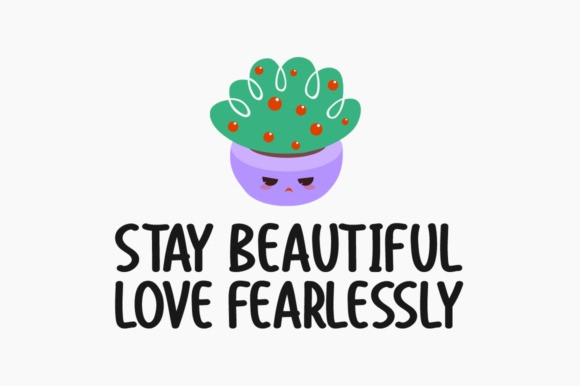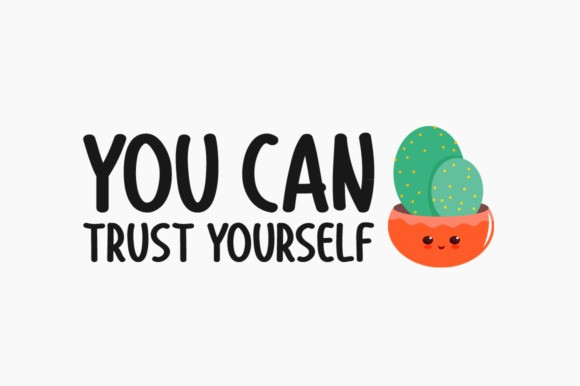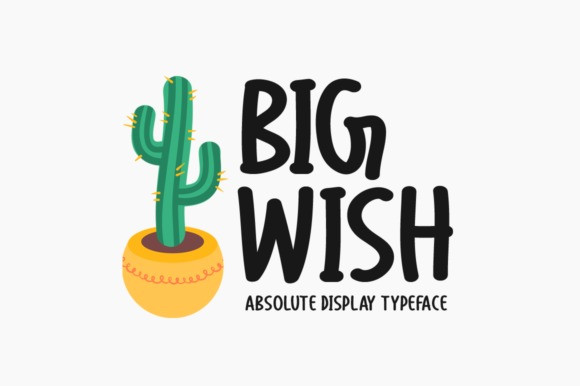
Big Wish Font
Big Wish Display Font is a cool, casual and fun display font. It can easily be matched to an incredibly large set of projects, so add it to your creative ideas and notice how it makes them stand out!